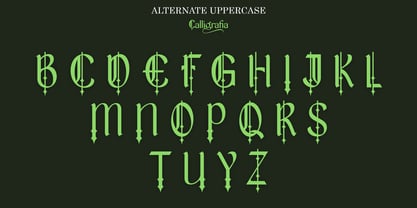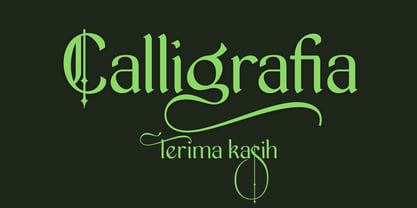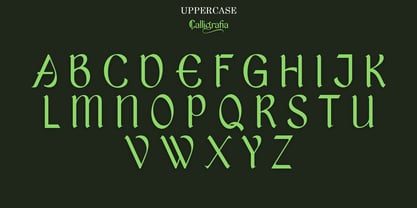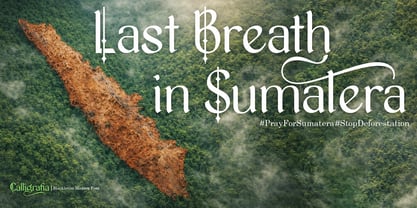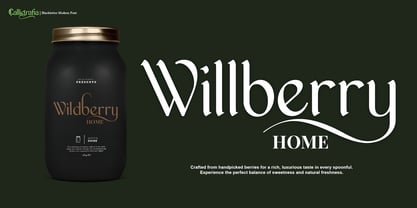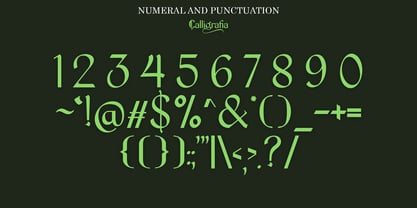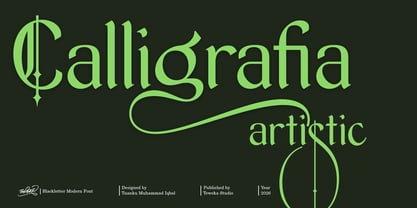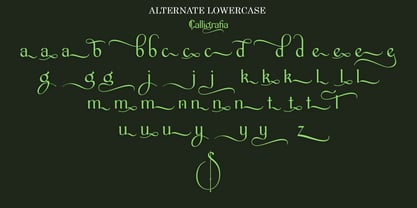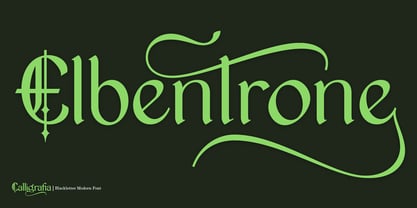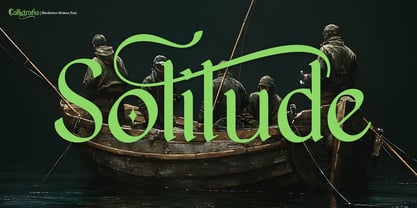
Calligrafia artistic
The Calligrafia artistic Font Family was designed by Tuanku Muhammad Iqbal and published by Teweka. Calligrafia artistic contains 1 styles. More about this family
Calligrafia artistic is a modern Blackletter font that blends classic gothic aesthetics with a contemporary design approach. It delivers bold, artistic letterforms filled with character—perfect for creating strong, exclusive, and high-impact visuals. Inspired by traditional blackletter structure yet refined for modern use, Calligrafia maintains sharp edges and balanced proportions without feeling outdated. Every stroke is carefully crafted to ensure powerful visual presence while remaining versatile across various design applications. Perfect For: Fashion and streetwear branding Logo design Tattoo lettering Music posters and merchandise Editorial headlines Premium packaging Bold social media graphics Features: 306 Glyphs Uppercase & Lowercase Numbers & Punctuation Strong Modern Blackletter Style High Visual Impact Calligrafia artistic is not just another gothic font — it’s a modern interpretation of classic blackletter, designed to elevate your brand identity with confidence and distinction.